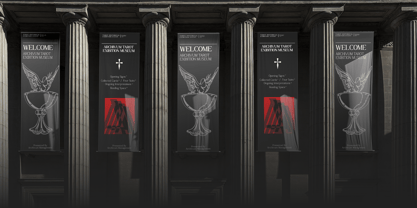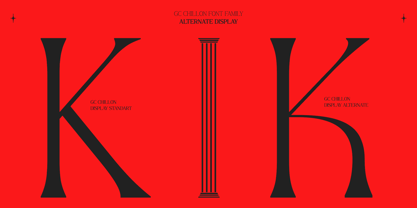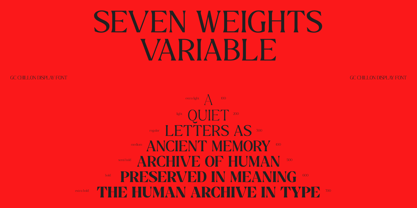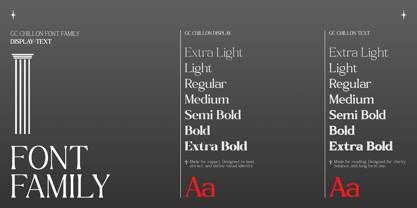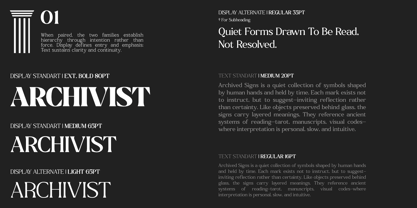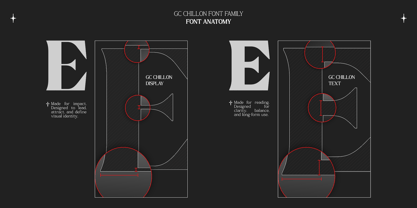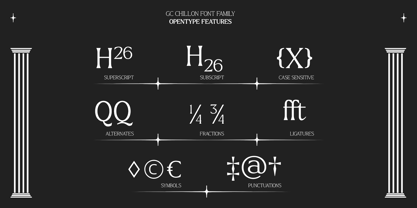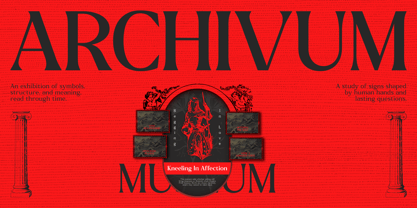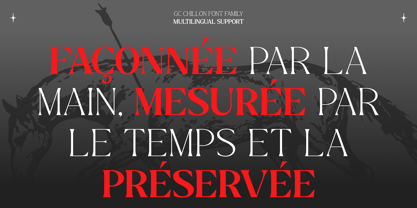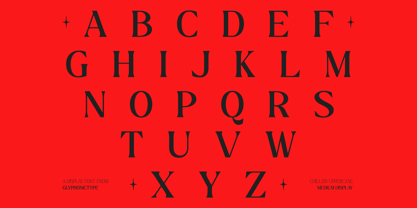
GC Chillon
by Onyx Studio
The GC Chillon Font Family was designed by Muhammad Hafiizh Solana and published by Onyx Studio. GC Chillon contains 14 styles and family package options. More about this family
GC Chillon – Stylish Serif Text Display is a sophisticated serif typeface designed to deliver elegance, character, and visual impact in contemporary typography. Crafted with refined proportions and stylish details, Chillon combines classic serif sensibility with a modern display approach, resulting in a distinctive and confident typographic voice. Built for expressive text and eye-catching compositions, GC Chillon performs beautifully across branding, editorial design, headlines, posters, and luxury-oriented visuals. Its balanced construction ensures readability while its decorative nuances add personality and refinement—making it ideal for both statement typography and polished layouts. Designed as a versatile text display serif, GC Chillon adapts effortlessly from bold headlines to refined typographic hierarchy. The typeface offers clarity without losing its expressive charm, allowing designers to create compositions that feel timeless yet contemporary. Whether used for editorial titles, brand identities, fashion visuals, or elegant print applications, GC Chillon provides a strong serif foundation that blends style, structure, and sophistication. Features: Uppercase & Lowercase Numbers & Punctuation Stylish Serif Construction Multilingual Support Bring elegance, character, and modern refinement into your typography with GC Chillon.
Designers: Muhammad Hafiizh Solana
Foundry: Onyx Studio